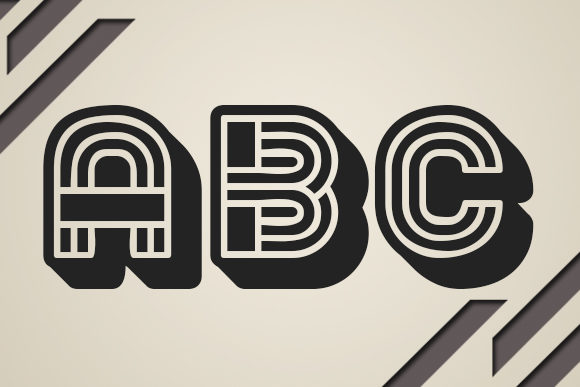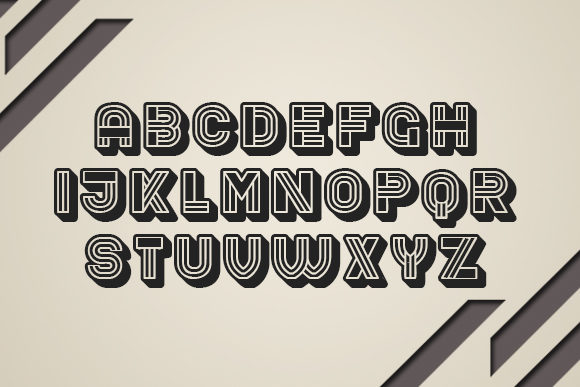
Wrap Yourself in Style: The Magic of Blanket Font
Have you ever stared at a blank page, waiting for the perfect idea to strike? It’s a moment we’ve all been there, when the creative juices start flowing and the possibilities seem endless. For designers, this spark of inspiration can be the start of something truly special – a project that showcases their unique style and flair. And that’s exactly what the Blanket Font is designed to help you achieve.
This amazing 3D display font is perfect for adding a vintage touch to your posters, flyers, social media posts, and more. With its unique texture and depth, Blanket Font adds a tactile quality to your designs that’s sure to grab attention. And with its versatility, you can use it to create a wide range of looks, from rustic to modern and everything in between.
- Unique Character Set: Blanket Font features a unique character set, including a wide range of symbols, ligatures, and alternates, adding an extra layer of creativity to designs.
Blanket Font Review
I’ve had the chance to work with Blanket Font and I must say it’s a mixed bag. On one hand, I love how versatile it is ✨. It comes in a wide range of weights, from light to bold, making it perfect for creating visually appealing typography in various contexts.
- ✨ It’s great for creating subtle, yet effective, visual hierarchies in designs.
- ✨ The font is highly legible, even at smaller sizes, making it perfect for body text.
- ✨ The font’s rounded edges give it a friendly, approachable feel that works well in a variety of industries.
However, there are some limitations to consider ⚠️. One of the main issues I’ve noticed is that the font can feel a bit generic, especially when used in isolation.
- ⚠️ The font’s lack of distinctiveness can make it feel like it’s trying to fit in too many different design styles.
- ⚠️ The font’s rounded edges can sometimes make it difficult to read at very small sizes.
Overall, I’d say Blanket Font is a solid choice for designers who want a versatile, easy-to-read font. However, it may not be the best option for those looking for a font that truly stands out.
Tips for Getting the Most Out of Blanket Font
Blanket Font is a unique and creative font that can add a personal touch to your designs. To get the most out of it:
- Experiment with different text sizes and colors.
- Use Blanket Font in combination with other fonts for a unique look.
- Play with different text styles, such as bold and italic.
Blanket Font is perfect for:
- Personalized gifts and cards.